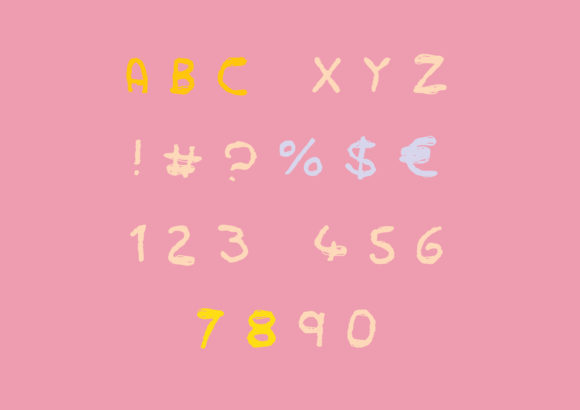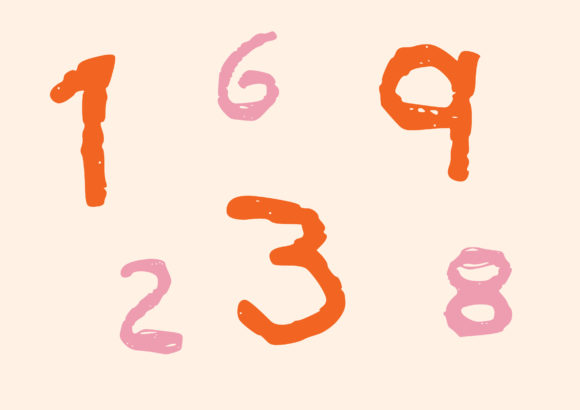
Introduction to Play Chalk Font
Do you remember the feeling of dusting off your old chalkboard markers and scribbling away with vibrant colors, watching your imagination come to life? The Play Chalk Font brings back those carefree days, infusing your creative projects with a playful, childlike charm. This delightful font is the perfect addition to any design resource, and we can’t wait to share its unique features with you.
As a designer, you know the value of a high-quality font that can elevate your creative project. The Play Chalk Font is a versatile tool that’s perfect for schools, home teaching, and craft projects. With its rounded, handwritten style and transparent background, this font is a joy to work with. And the best part? It’s available for free download, making it an essential resource for any designer looking to add a personal touch to their work.
Whether you’re working on a design project or simply want to add some whimsy to your everyday life, the Play Chalk Font is sure to bring a smile to your face. So why settle for a generic font when you can have a playful, one-of-a-kind design element that’s sure to make your work stand out?
Key Features of Play Chalk Font
- High-quality, hand-drawn design with a playful, casual feel, making it perfect for creative projects.
- Includes a transparent background, allowing for easy integration into various design elements.
- Features a clean, easy-to-read design with a consistent style, suitable for a wide range of creative applications.
- Unique characteristics include subtle texture and imperfections, giving the font a natural, hand-drawn look.
Honest Review: Play Chalk Font
As a designer, I’m always on the lookout for unique and versatile design resources to elevate my creative projects. Recently, I had the chance to experiment with the Play Chalk Font, and I’m excited to share my honest review.
What works well: ✨ The Play Chalk Font is incredibly easy to use and offers a high-quality, hand-drawn look that’s perfect for creative projects. I love how the font can be customized to fit various design styles, from playful to elegant. The transparent background feature is also a huge plus, allowing me to layer the font seamlessly over images and textures.
- High-quality, hand-drawn design
- Easy to use and customize
Limitations: ⚠️ While the Play Chalk Font is a great addition to any design resource collection, I did encounter some limitations. The font can be quite bold, making it less suitable for text-heavy designs or those requiring a more subtle look.
Overall, I’m impressed with the Play Chalk Font and its potential to add a unique touch to my creative projects. With its high-quality design, ease of use, and transparent background feature, it’s definitely worth checking out – especially for those looking for a free download.
Play Chalk Font
The Play Chalk Font is a versatile design resource ideal for creative projects. This high-quality font features a transparent background, making it easy to customize and integrate into various designs.
The Play Chalk Font is suitable for a variety of creative projects, including:
- Party decorations
- Children’s educational materials